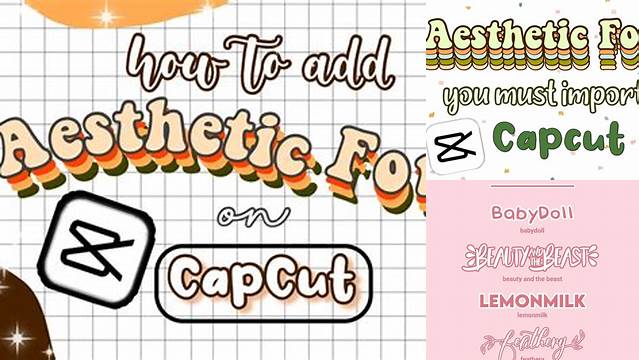
CapCut Font Guide: Cute & Aesthetic Fonts
Hey guys! If you're anything like me, you're obsessed with making your videos look amazing. And a huge part of that is choosing the perfect fonts! CapCut is super popular, and for good reason – it's packed with features and so easy to use. But sometimes, finding those cute aesthetic fonts for CapCut that really make your videos pop can feel like searching for a needle in a haystack. That's where I come in! I'm going to break down everything you need to know about finding, using, and even downloading those perfect fonts to give your videos that extra touch of pizzazz. Ready to dive in?
Why Fonts Matter: The Power of Typography
Okay, let's be real, you might be thinking, "Why does it even matter?" Well, my friends, the fonts you choose can make or break your video's vibe. Think about it: fonts are a silent language. They communicate personality, tone, and style without saying a word. When you're looking for cute aesthetic fonts for CapCut, you're essentially choosing how your message is delivered. A bubbly, handwritten font screams fun and playful, perfect for a travel vlog or a cooking tutorial. A sleek, modern font, on the other hand, lends a sense of sophistication and professionalism, ideal for a business promo or a tutorial video. The right font can instantly elevate your video, making it more engaging and memorable. It's about creating a cohesive visual experience that draws your audience in. Think about some of your favorite YouTubers or TikTok creators. The chances are they've carefully chosen fonts that align with their brand and content. It’s a subtle art, but a powerful one. It's also about readability. No matter how cute a font is, if it's difficult to read, it's doing more harm than good. You want your audience to understand your message easily, so readability is key. Font choice isn't just about looks; it's about enhancing the overall impact of your video. It's the secret sauce that takes your content from good to great.
When you are trying to find the perfect cute aesthetic fonts for CapCut, you're not just choosing a font; you are curating an experience. Consider the overall aesthetic you want to create. Are you aiming for a vintage vibe, a modern look, or something in between? The font should complement your video's visuals and content. It's also important to think about the context of your video. What's the target audience? What's the overall message? The font should align with both. Don't be afraid to experiment! Try out different fonts to see what works best. You might be surprised at the results. Some fonts work better in certain situations than others. Some fonts are better for headlines, while others are better for body text. Some fonts look great at large sizes, but fall apart when they are smaller. Font choice is an art form, and it takes practice to get it right. Don't be afraid to take risks, make mistakes, and most importantly, have fun! The more you experiment, the better you'll become at choosing fonts that elevate your videos.
Finding Aesthetic Fonts: Where to Look
Alright, now for the fun part: where do you find those cute aesthetic fonts for CapCut that you've been dreaming of? Luckily, CapCut itself comes with a pretty solid selection of built-in fonts. But, let's be real, sometimes you want something a little extra. Here's the lowdown on how to expand your font library:
- CapCut's Built-In Fonts: Don't underestimate the power of what's already available! CapCut has a good range of fonts that can get you started. Browse through them and see if any catch your eye. They're a great starting point, especially if you're new to video editing or want to keep things simple.
- Font Styles to Search For: When you're searching for cute aesthetic fonts for CapCut, here are some styles to keep an eye out for:
- Handwritten Fonts: These fonts give off a personal, friendly vibe. They're perfect for travel videos, vlogs, and anything that needs a touch of warmth.
- Script Fonts: These fonts add a touch of elegance and sophistication. They're great for titles, headings, and anything that needs a little flair.
- Sans-Serif Fonts: Clean and modern, these fonts are great for readability. They're a safe bet for almost any type of video.
- Serif Fonts: These fonts have little strokes at the ends of the letters, giving them a classic look. They work well for a more formal or traditional feel.